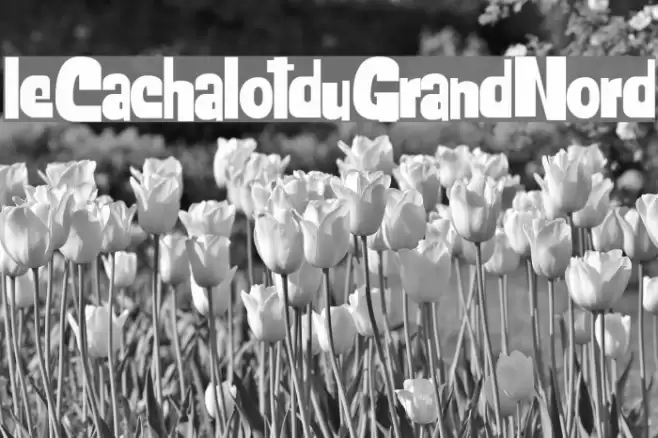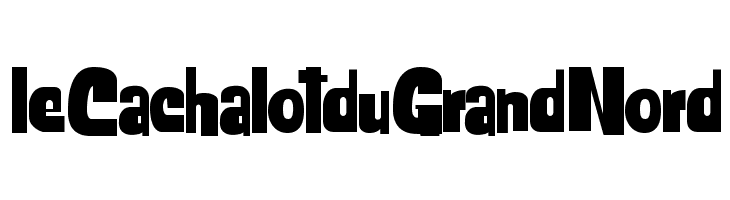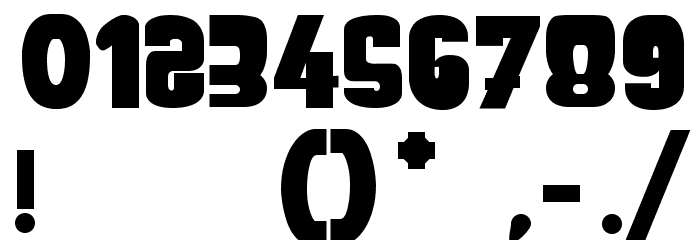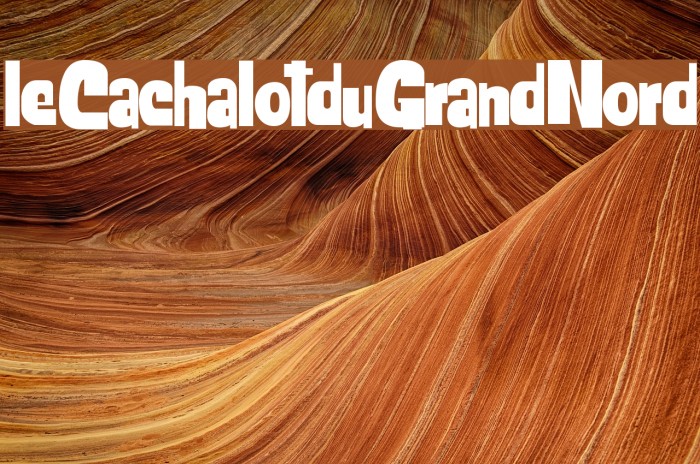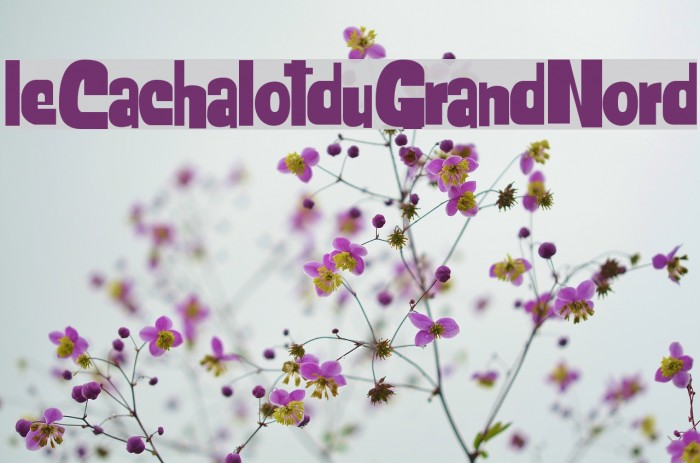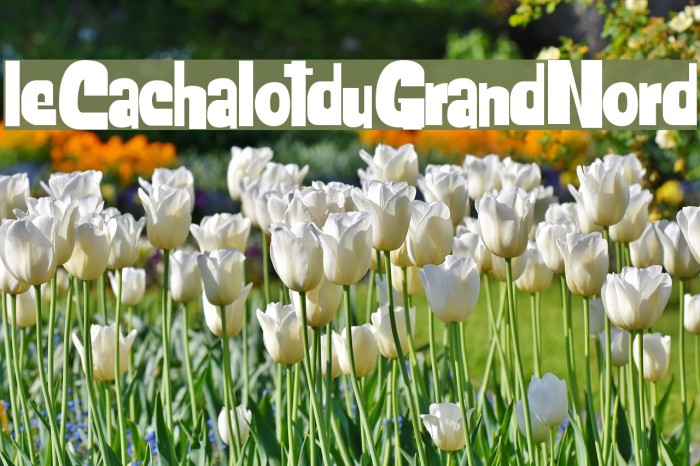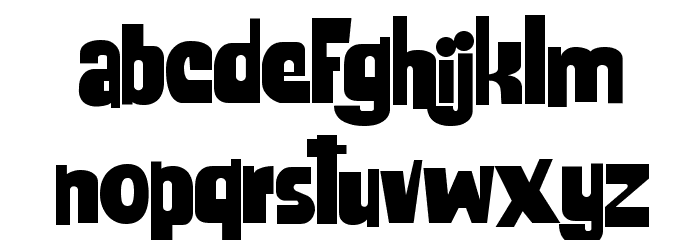
leCachalotduGrandNord Font
leCachalotduGrandNord Description
This font features bold, blocky characters with a strong presence, making it ideal for impactful designs. The uppercase letters are particularly wide and imposing, while the lowercase letters maintain a consistent thickness, contributing to a cohesive look. The numbers are equally bold, ensuring they stand out in any context. Special characters are designed with the same boldness, ensuring uniformity across all text elements. This font's style is reminiscent of vintage poster designs, with a modern twist that makes it suitable for contemporary applications.
A bold, blocky font with a vintage yet modern appeal from Cartoon fonts.
- Proposed Projects: Ideal for posters, headlines, branding, and any project requiring a strong visual impact.
- Width: Expanded
- Overall Style: Vintage, Modern